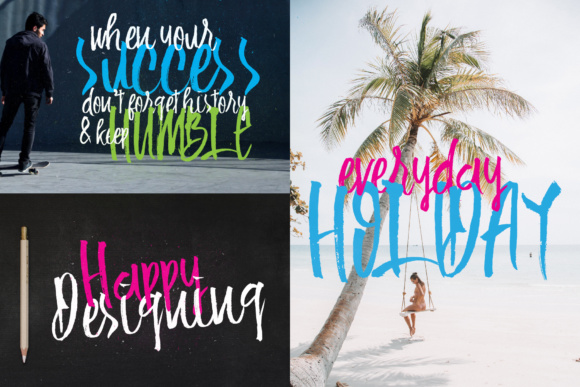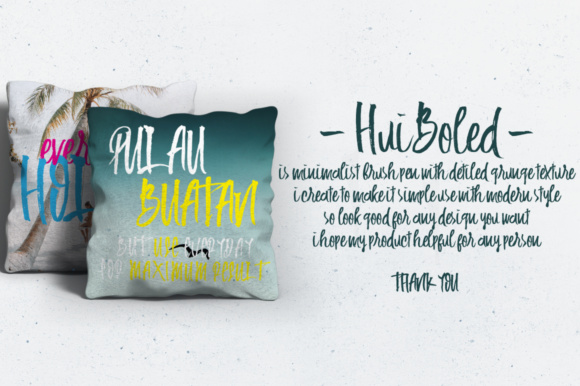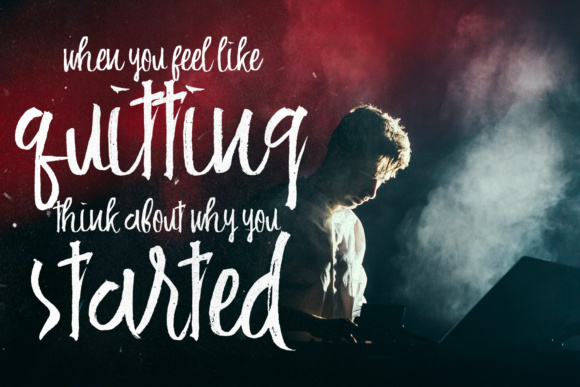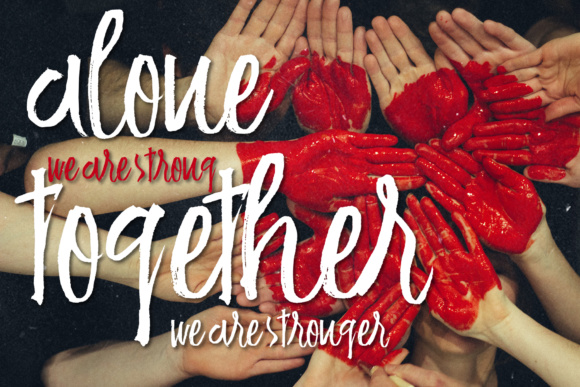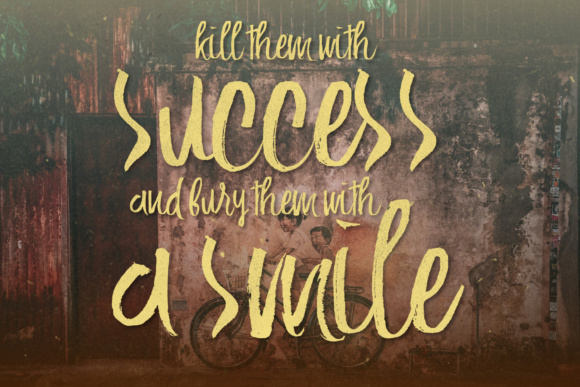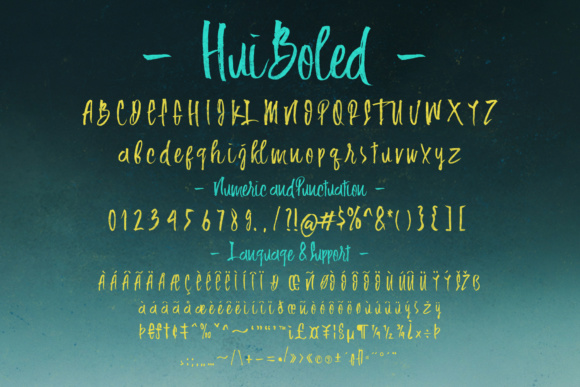
Introduction to Hui Boled Font
Hui Boled is a gorgeous, rough brush stroke font that will give all your designs a textured and hip feel.
This font has a great appeal, and can add some modernity to your work .
Key Features of Hui Boled Font
Why Choose Hui Boled Font?
Hui Boled Font offers exceptional quality and versatility, making it a valuable addition to your design toolkit. Whether you’re creating for personal projects or commercial use, Hui Boled Font delivers professional results.